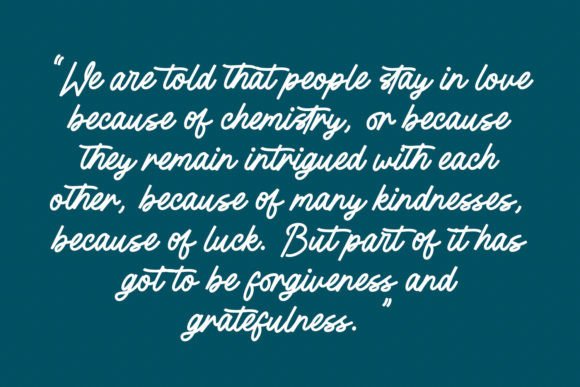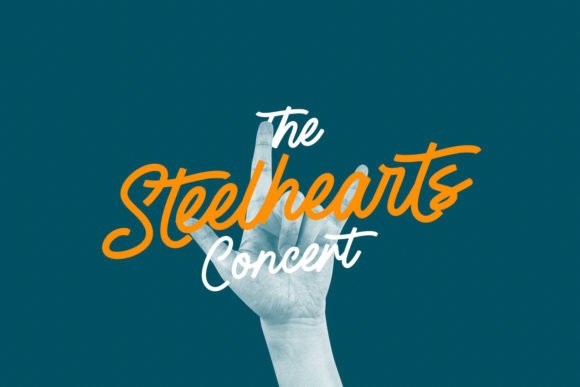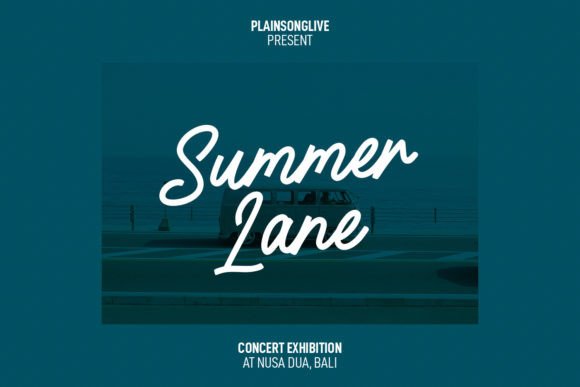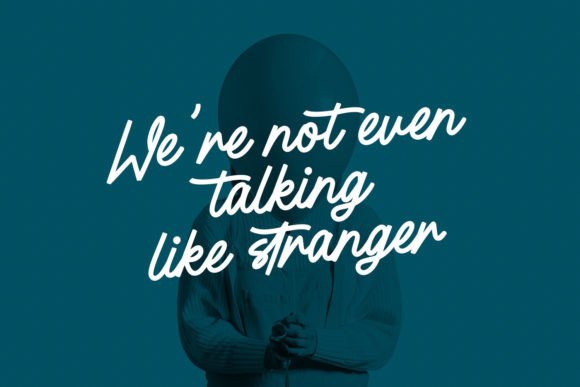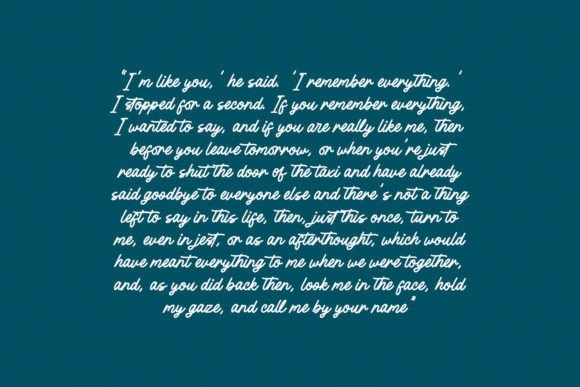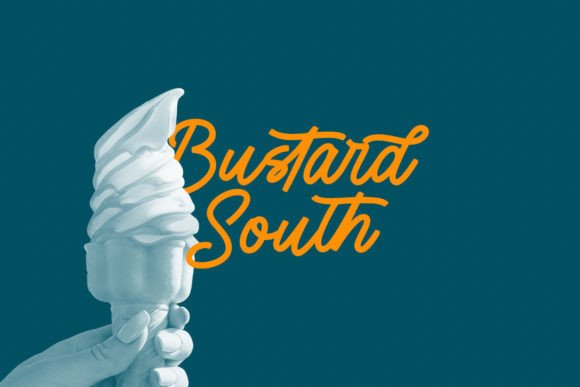
Introduction to Seelogart Font
Imagine you’re brainstorming ideas for a creative project, and you stumble upon the perfect font to bring your concept to life. For many designers, this moment is pure magic. It’s the moment when all the elements come together, and the project starts to take shape. This is exactly what happens when you work with the Seelogart Font – a stylish, vintage-style handwritten script font that’s sure to elevate any design.
As a valuable addition to any design library, Seelogart Font is a must-have for creatives. With its high-quality, detailed design, it’s perfect for adding a touch of elegance to your next project. Whether you’re working on a logo, a poster, or a brochure, this font is sure to impress. And the best part? It’s available for free download, making it an accessible resource for designers of all levels.
Key Features of Seelogart Font
- High-quality design resource for creative projects, ideal for digital art and graphics.
- Unique, elegant script font perfect for adding a touch of sophistication to any creative project.
Honest Review: Seelogart Font
As a designer, I’m always on the lookout for high-quality fonts to enhance my creative projects. Recently, I stumbled upon the Seelogart Font, and I’m excited to share my honest review with you.
Here are the things that work well: ✨ The Seelogart Font is a beautiful, elegant script font that’s perfect for adding a touch of sophistication to your designs. It’s highly legible, even on small sizes, and the lines are smooth and flowing. The font also comes in a transparent background version, which is a great bonus for designers who need to overlay text on images.
Here are the limitations: ⚠️ The Seelogart Font is a free download, which is great, but it’s not as versatile as some of the paid fonts out there. The font only comes in one weight, which can limit its use in certain design projects. Additionally, the font may not be as suitable for bold or dramatic designs, as it’s a more subtle and refined font.
Overall, I’m impressed with the Seelogart Font, and I think it’s a great addition to any designer’s toolkit. It’s perfect for creative projects that require a touch of elegance and sophistication, and it’s a great option for designers who are on a budget.
- High-quality font with smooth lines and a beautiful, elegant design
- Perfect for adding a touch of sophistication to your designs
- Comes in a transparent background version
- Only one weight available, which can limit its use in certain design projects
- May not be suitable for bold or dramatic designs
Tips for Getting the Most Out of Seelogart Font
Here are a few tips for getting the most out of the Seelogart Font:
- Experiment with different font sizes and colors to create a unique look.
- Use the font with a transparent background to create a modern and sleek design.
- Combine the Seelogart Font with other design elements, such as images and shapes, to create a visually appealing design.
The Seelogart Font is perfect for a variety of creative projects, including:
- Blog posts and articles
- Business cards and marketing